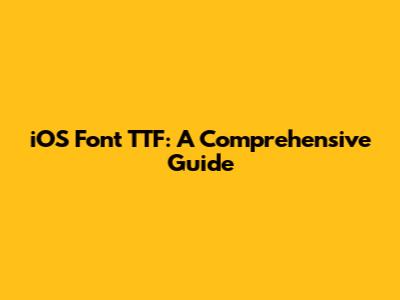
Hey guys! Ever wondered about fonts on your iPhone or iPad? Specifically, have you ever stumbled upon the term "TTF" and scratched your head? Well, you're in the right place! This guide is all about iOS fonts and the TTF file format. We'll break it down in a way that's easy to understand, even if you're not a tech whiz. Let's dive in!
Understanding Fonts on iOS
Let's kick things off with the basics. What are fonts, and why are they important on your iOS device? In simple terms, a font is a set of characters (letters, numbers, symbols) designed with a specific style. Think of it like different handwriting styles – some are elegant and cursive, others are bold and blocky. Fonts play a crucial role in how text appears on your screen, influencing readability, aesthetics, and overall user experience.
On iOS, fonts are used everywhere! From the text messages you send to the articles you read in Safari, fonts are the unsung heroes that make information presentable and engaging. Apple provides a set of system fonts that are used by default across the operating system. These fonts are carefully chosen to ensure clarity and consistency. However, developers and users can also install custom fonts to personalize their iOS experience further. This is where the TTF format comes into play.
Why is font choice so important, you ask? Imagine reading a novel written in Comic Sans – it just wouldn't feel right, would it? The right font can evoke emotions, convey tone, and enhance the message you're trying to communicate. A professional-looking app, for example, will use fonts that are clean, legible, and consistent with its brand identity. On the other hand, a fun, playful app might opt for fonts that are more whimsical and eye-catching. The key is to choose fonts that align with the purpose and style of your content. And for those who want to get really custom, understanding how to work with TTF fonts opens up a whole new world of possibilities.
TTF: TrueType Font Explained
Okay, so what exactly is TTF? TTF stands for TrueType Font, a font format developed by Apple and Microsoft in the late 1980s. It's one of the most common font formats around, widely used on Windows, macOS, and, of course, iOS. The beauty of TTF lies in its scalability – it can be scaled to different sizes without losing its quality or becoming pixelated. This is because TTF fonts are based on vector graphics, which are defined by mathematical equations rather than fixed pixels.
Think of it like this: imagine you have a drawing of a circle. If you drew it with pixels (like in a bitmap image), zooming in would make the circle look jagged and blurry. But if you drew it using mathematical equations (like in a vector graphic), zooming in would keep the circle perfectly smooth and round. TTF fonts work the same way, ensuring that text looks crisp and clear at any size. This is especially important on iOS devices, which come in a variety of screen sizes and resolutions. Whether you're viewing text on a small iPhone screen or a large iPad Pro display, TTF fonts will always look their best.
Another advantage of TTF is its compatibility. Because it's been around for so long and is supported by major operating systems, you'll find a vast library of TTF fonts available online. This gives you a wide range of options to choose from when designing your apps or personalizing your iOS device. However, it's important to note that not all TTF fonts are created equal. Some may be poorly designed, lack proper kerning (the spacing between letters), or have licensing restrictions that prevent you from using them commercially. So, always do your research and choose your TTF fonts carefully. This ensures that you're using high-quality fonts that are both visually appealing and legally compliant.